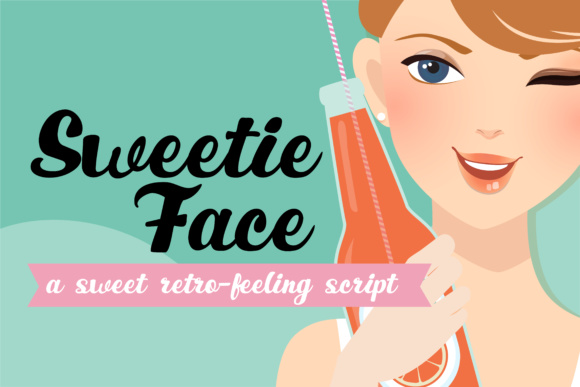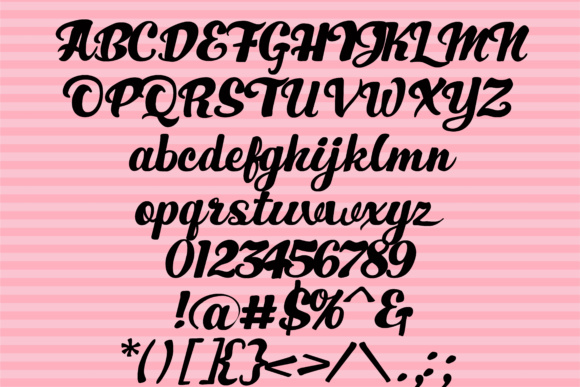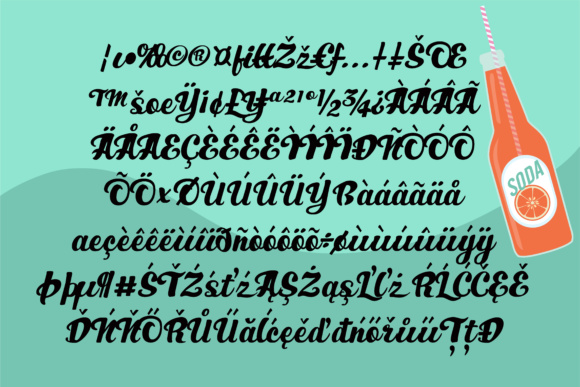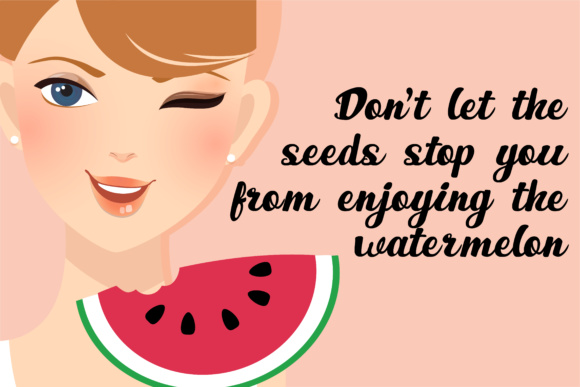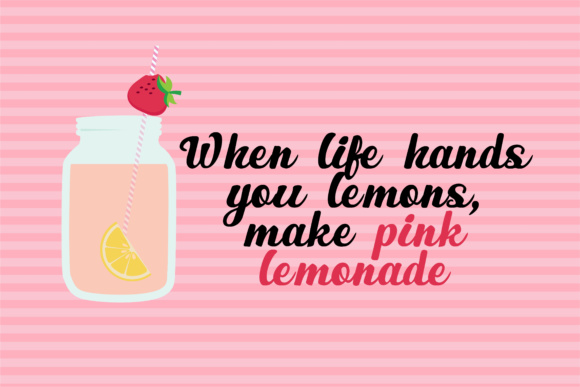
Sweetie Face Font
About Sweetie Face Font
Sweetie Face is a handcrafted, pretty script font that will add tons of beauty to your works! This retro inspired, bold display script font is a great way to add a refreshing yet well balanced look to your projects.